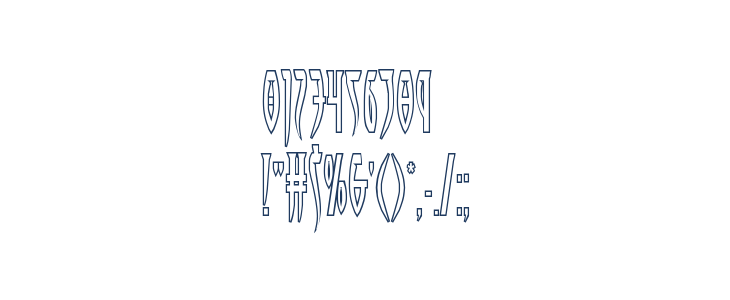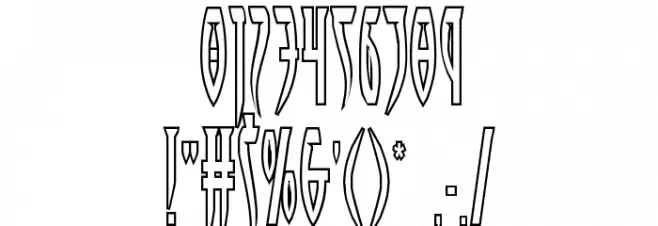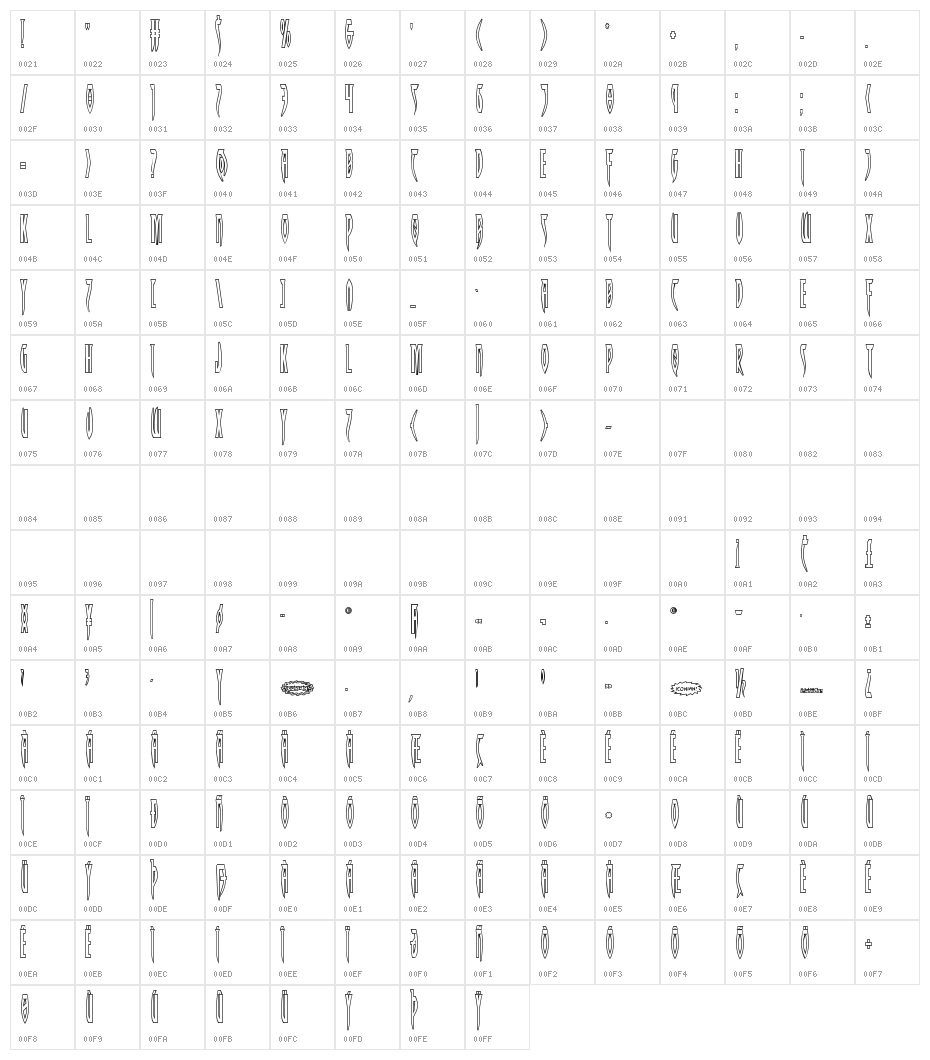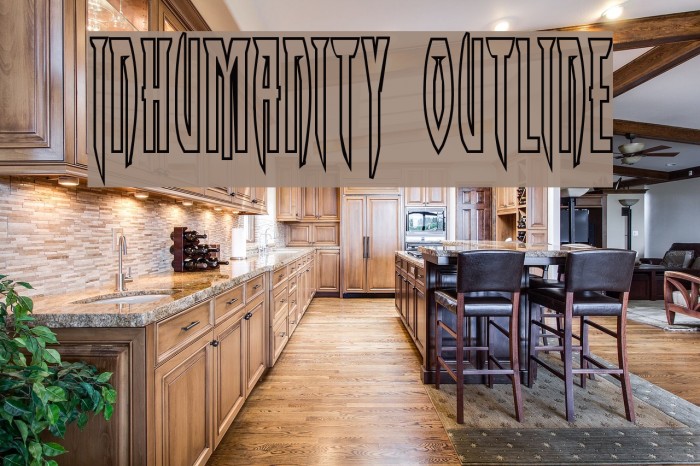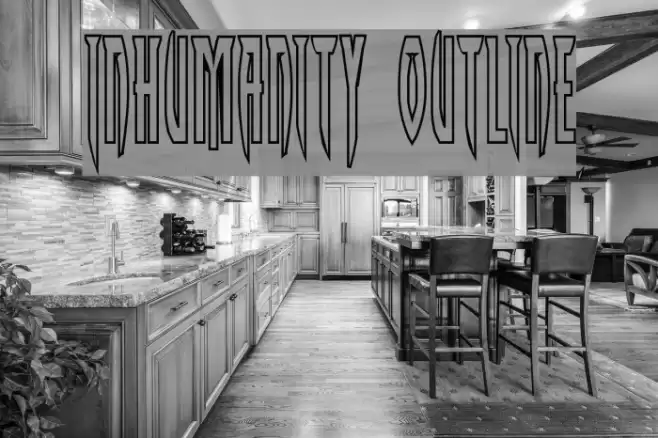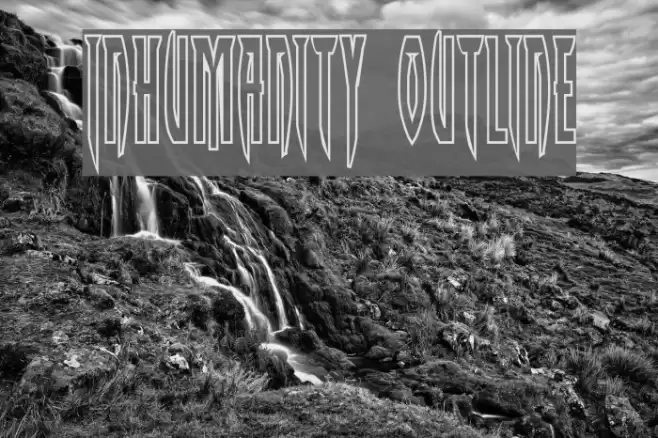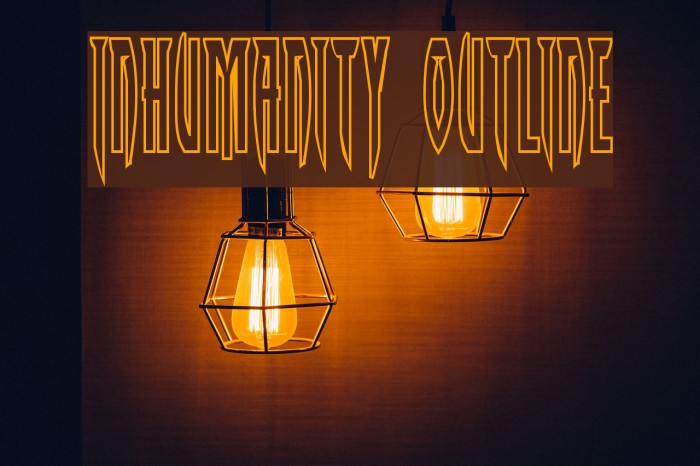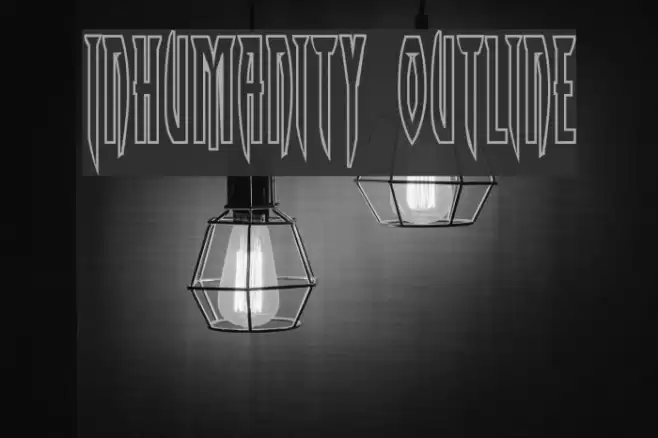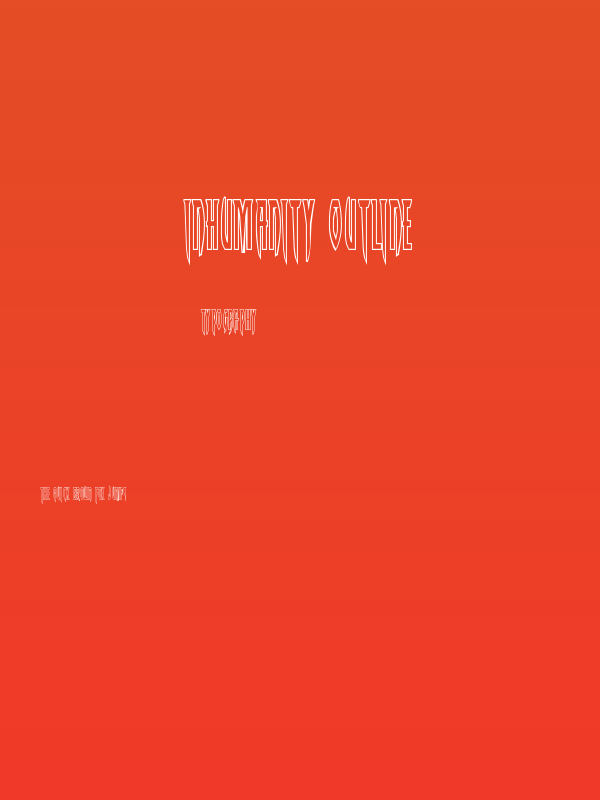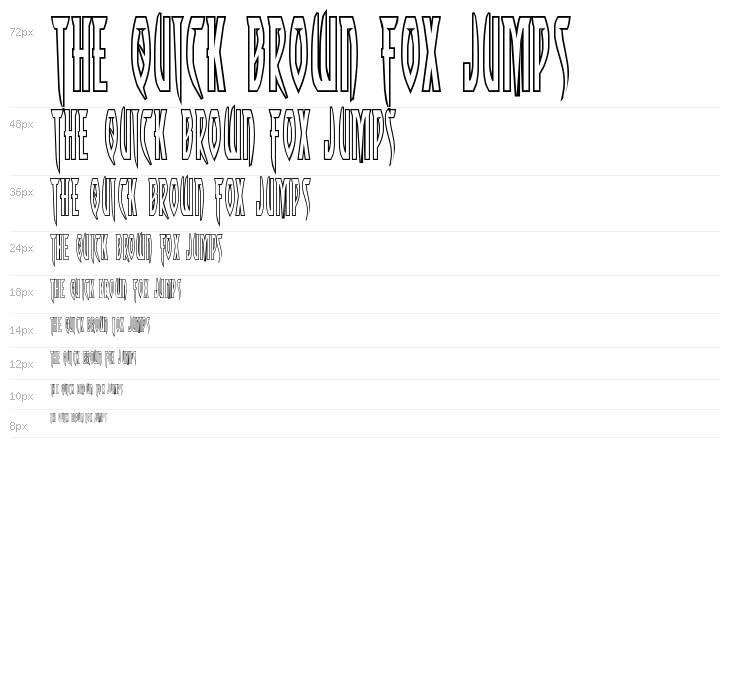
Inhumanity Outline Font
Inhumanity Outline Description
This font features a striking outline style with elongated, narrow characters that convey a sense of drama and intensity. The uppercase letters are tall and imposing, with sharp angles and a gothic influence, making them ideal for creating a bold statement. The lowercase letters maintain the same narrow structure, ensuring consistency across text. Numbers and special characters are designed with the same attention to detail, providing a cohesive look. The overall design is both modern and edgy, suitable for projects that require a strong visual impact.
| Overall Style | Modern, Edgy |
| Proposed Projects | Ideal for posters, album covers, video game titles, and branding that requires a bold, edgy look. |